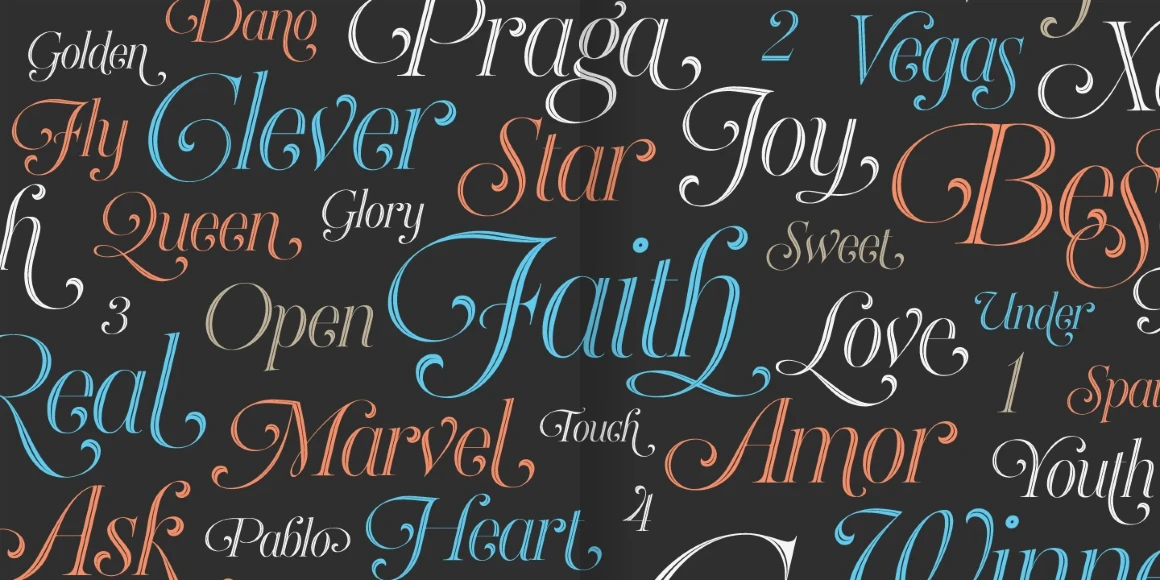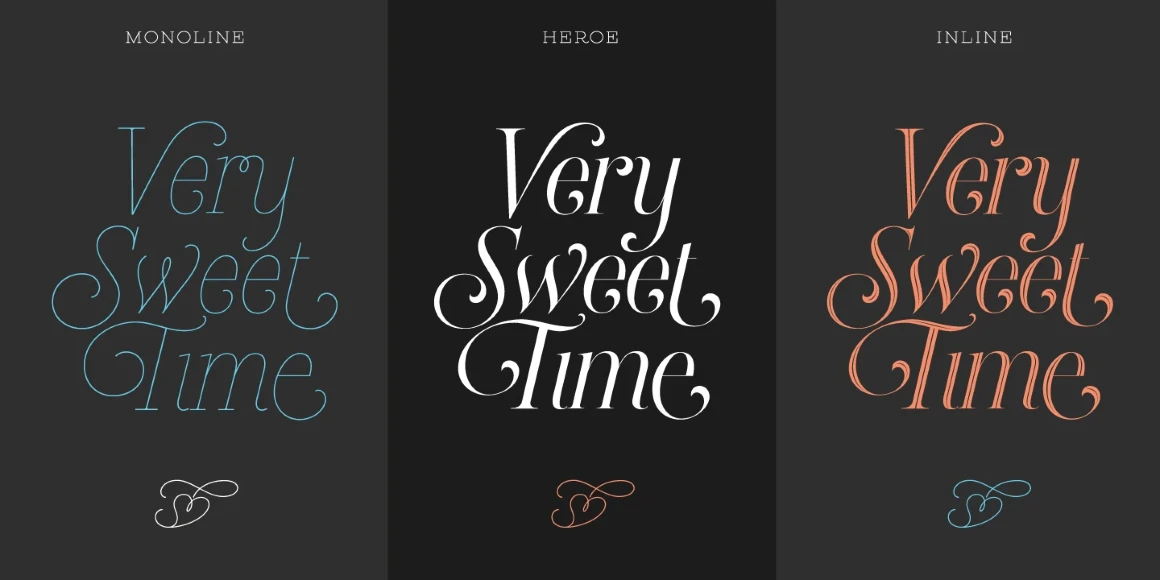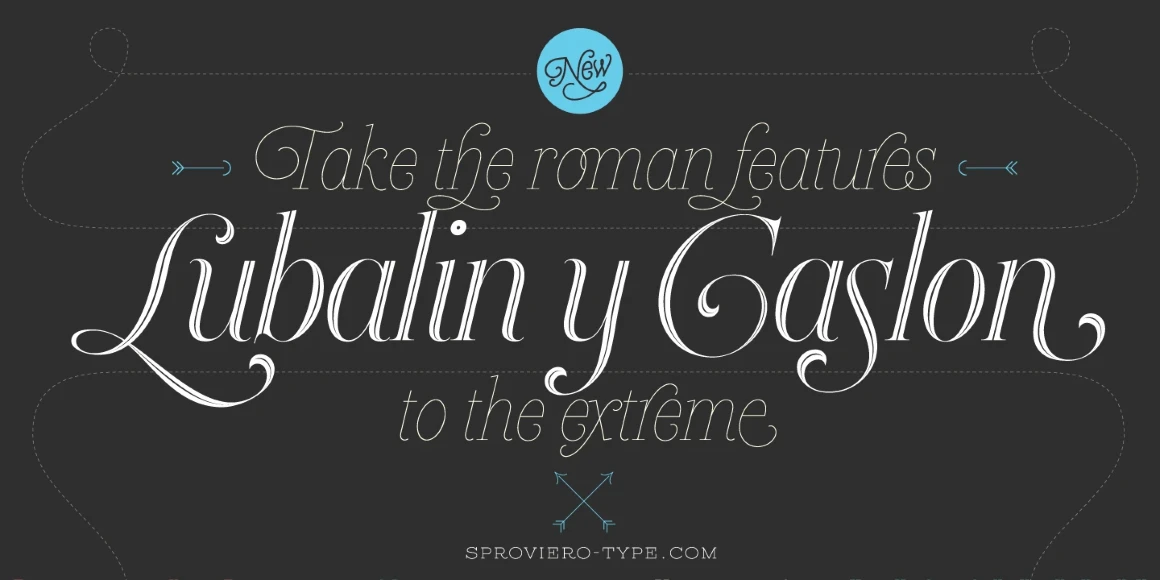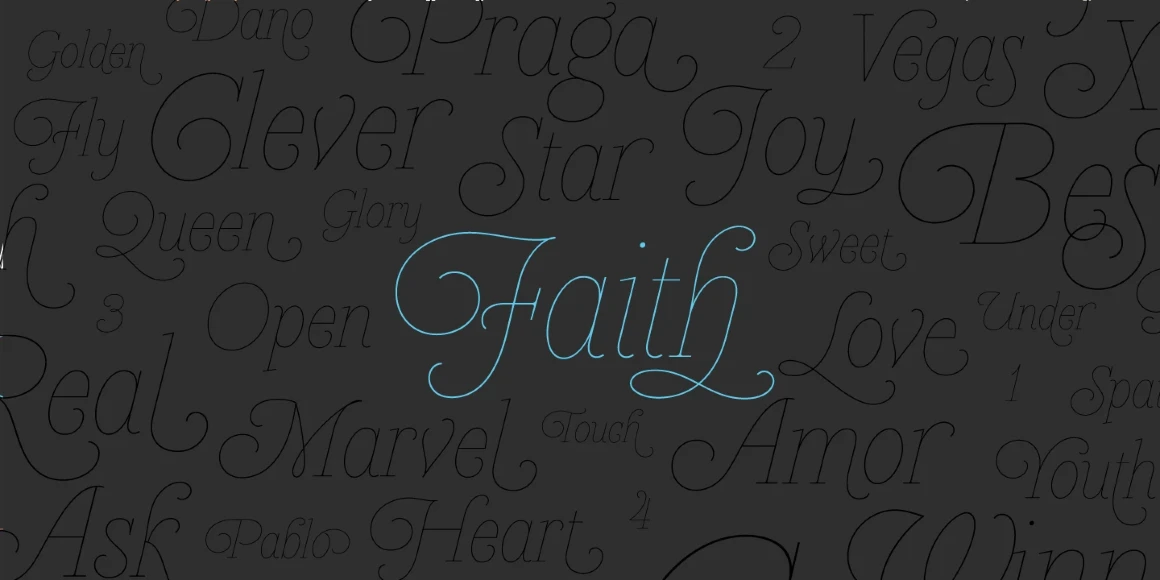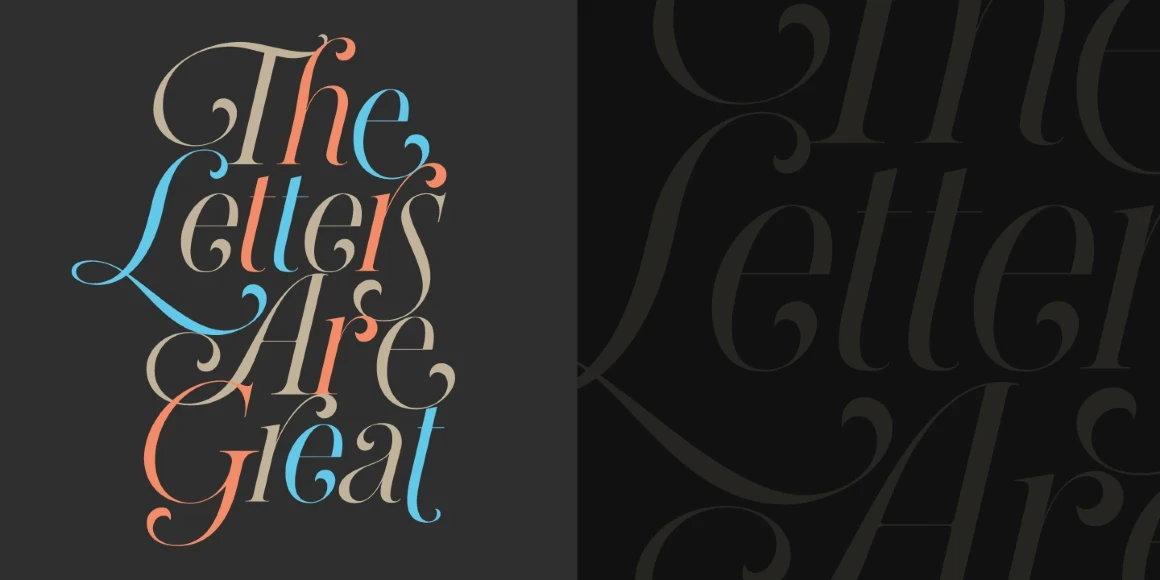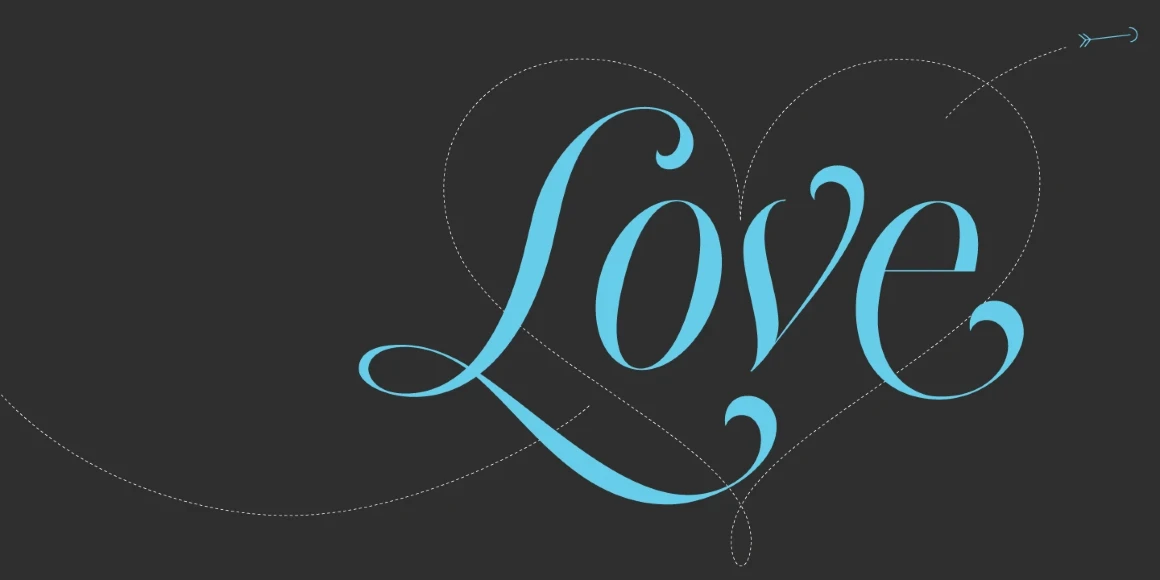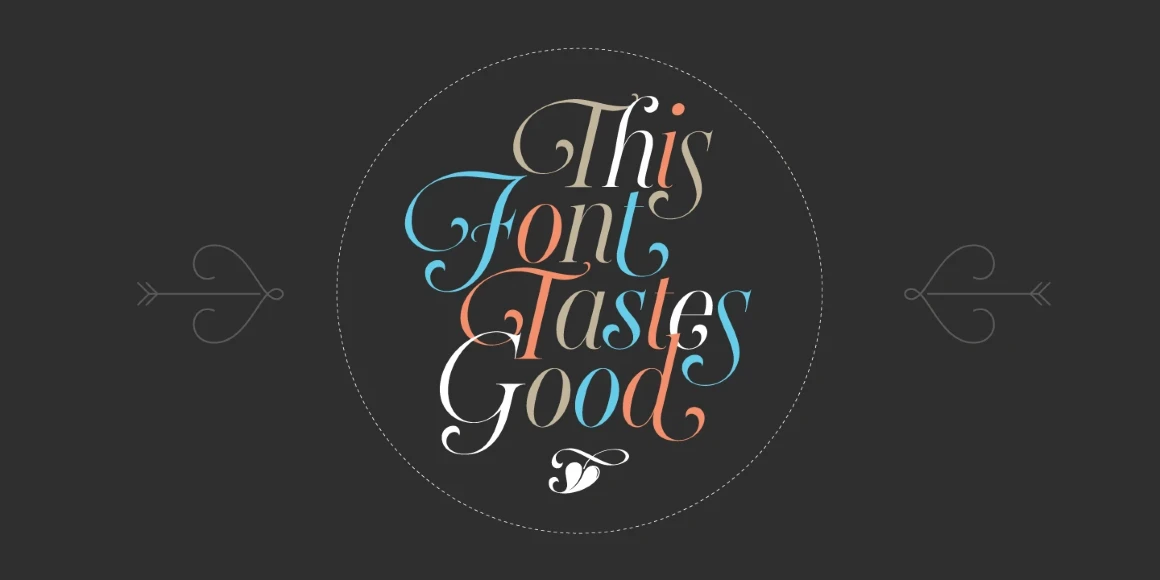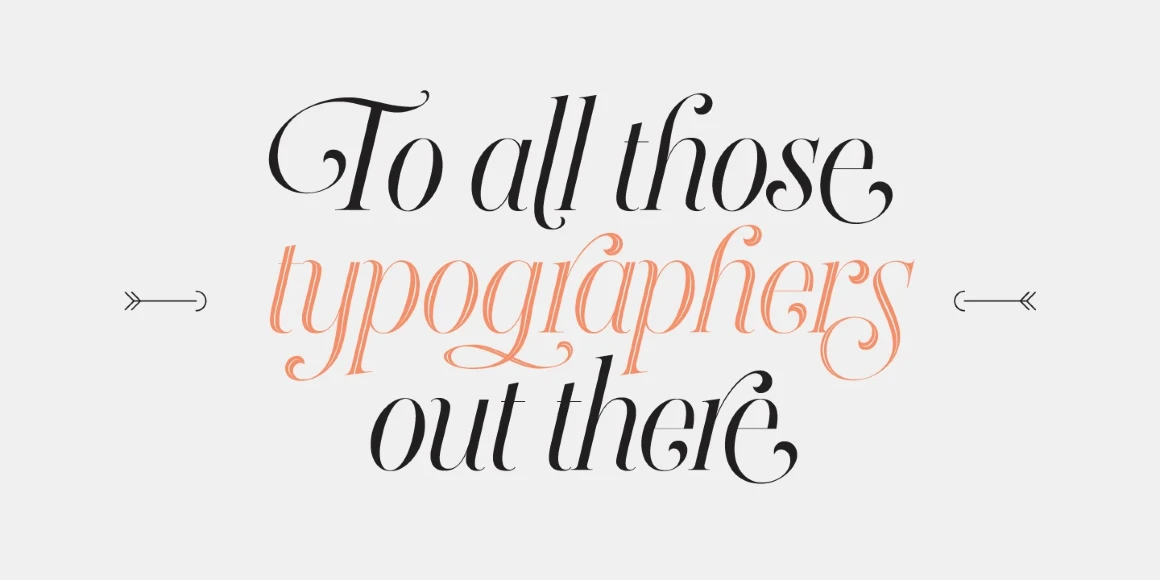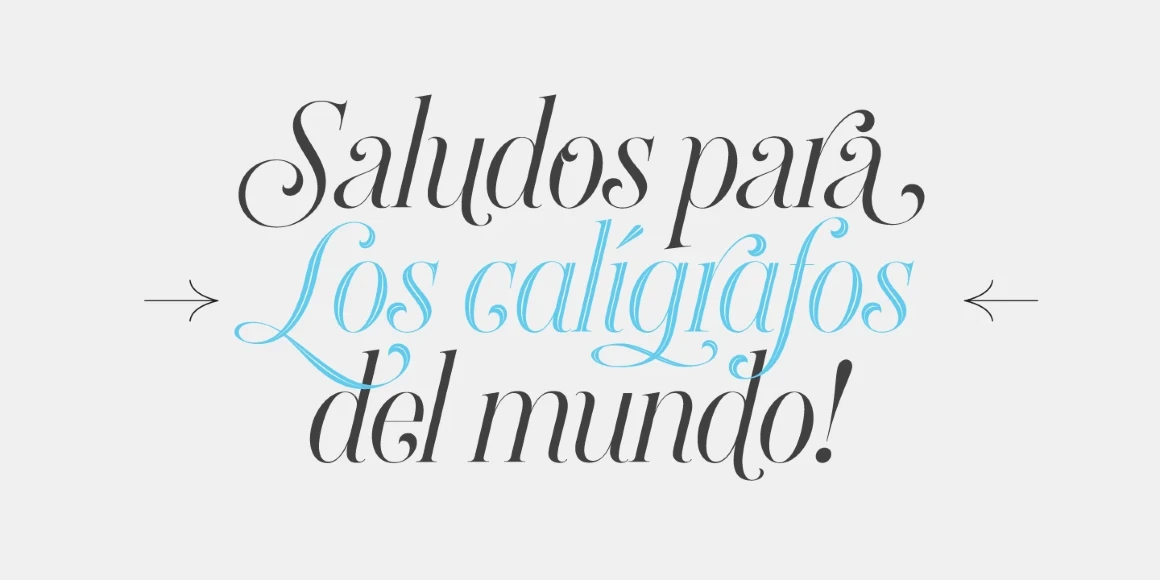
Heroe
By Maximiliano Sproviero
Heroe Monoline Small
Heroe Fleurons
Heroe Monoline Big
Heroe Inline
Heroe Regular
Heroe is a stylized italic full of surprising elegance and sharp visual drama. With delicate hairlines, unique ball terminals, and poetic curves, it takes some aspects of the classic Roman model and pushes them into expressive territory. The font family includes Regular, Monoline Big, Monoline Small, a striking Inline style, and Fleurons! Heroe is perfect for fashion magazines, perfume packaging, wedding invitations, or any luxury brand calling for sophistication with flair.